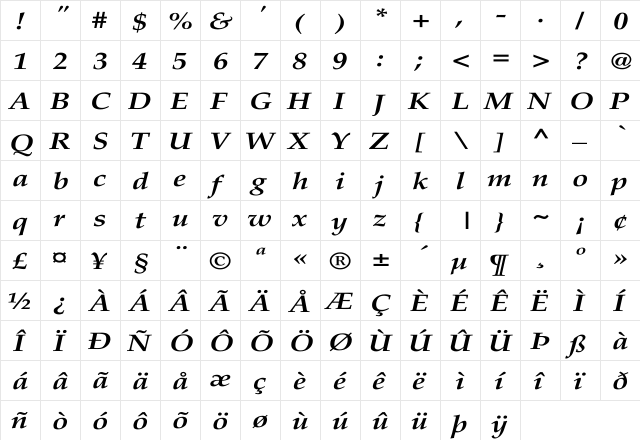
Palatino-BoldItalic Wd Regular
Design Context for Palatino-BoldItalic Wd Typeface
Palatino-BoldItalic Wd offers clean, dependable letterforms without strong stylistic allegiance, making it a practical choice for designers who need flexibility. Its italic angle brings a sense of urgency and motion to the letterforms. The heavy weight commands attention and anchors typographic hierarchies.
Pro Tip: Try Palatino-BoldItalic Wd for annotation and caption copy alongside an upright companion — the contrast in angle creates a dynamic but ordered typographic system.